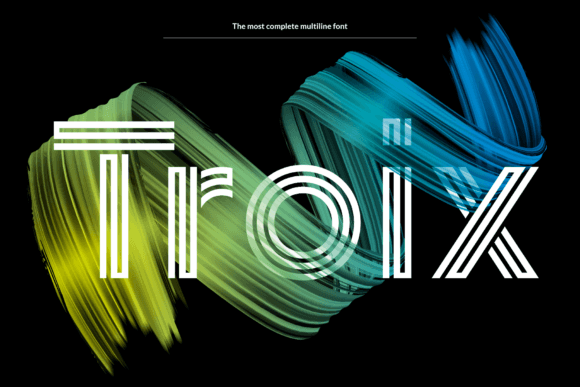
Introducing Troix Font: The Epitome of Luxury and Elegance for Your Design Creations
In the realm of design, where visual aesthetics reign supreme, the choice of font holds immense power in shaping the overall impact of your creations. Allow us to introduce Troix Font, a display font crafted with meticulous precision to elevate your designs to unparalleled heights of sophistication and luxury.
Troix Font is more than just a collection of characters; it's an artistic masterpiece that exudes elegance and refinement. Its meticulously crafted letterforms dance across the canvas, captivating the viewer's attention with their graceful curves and striking details. Whether you're designing posters, flyers, logos, or packaging, Troix Font will infuse your designs with an aura of exclusivity and timeless appeal.
Immerse yourself in the world of Troix Font and discover a treasure trove of creative possibilities. With a range of weights, styles, and ornaments, Troix Font empowers you to tailor your designs to perfection. Experiment with different combinations to create harmonious compositions that resonate with your unique vision.
As a creation of Studio Dot by Dot, Troix Font carries the legacy of excellence and innovation. Studio Dot by Dot's unwavering commitment to quality shines through in every stroke of Troix Font, ensuring that your designs will stand out from the crowd and leave a lasting impression.
Unlock the gateway to a world of luxury and sophistication with Troix Font. Embrace the allure of its enchanting letterforms and watch as your designs transform into captivating masterpieces. Elevate your creative endeavors to new heights and leave an indelible mark in the minds of your audience.